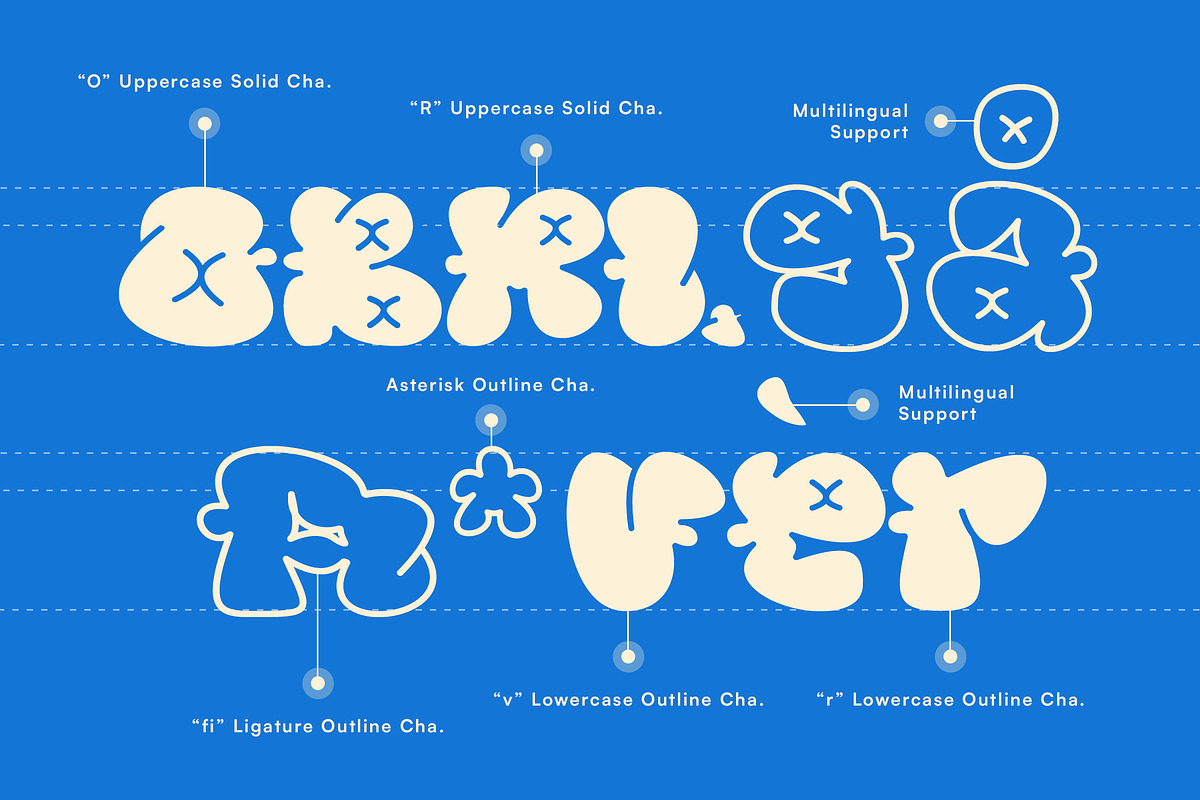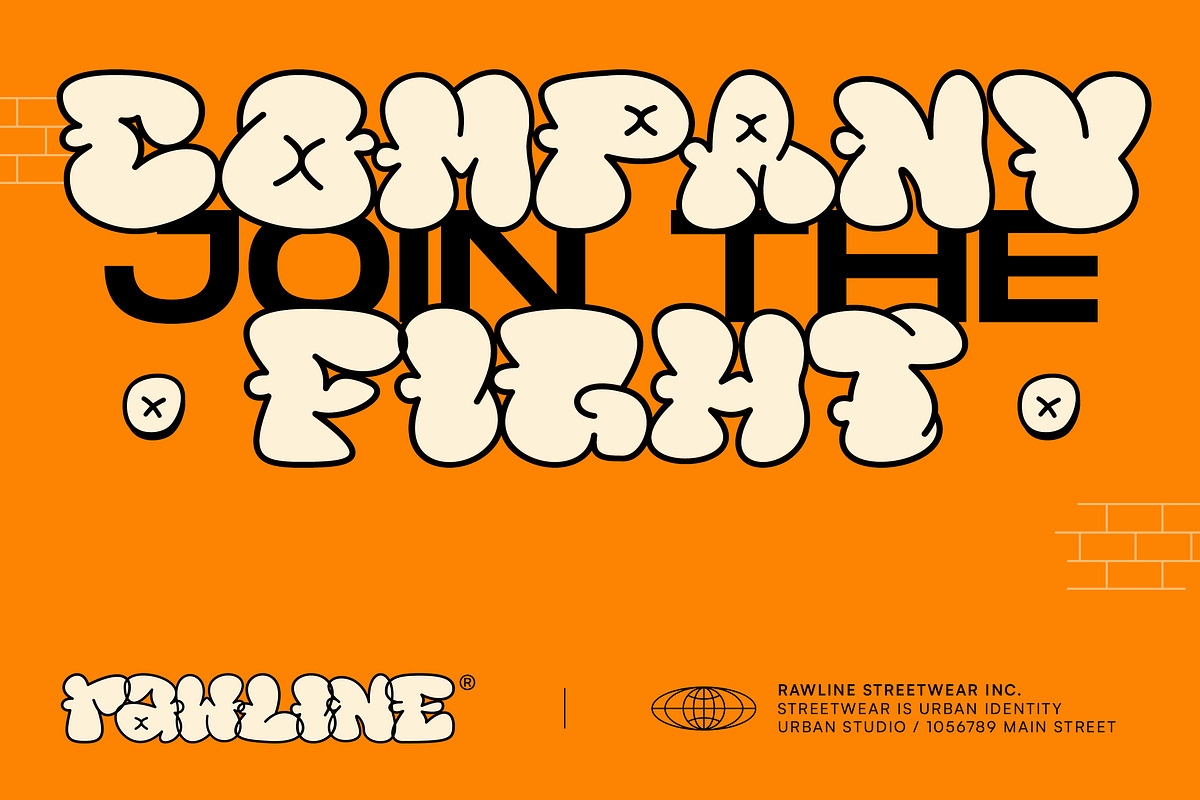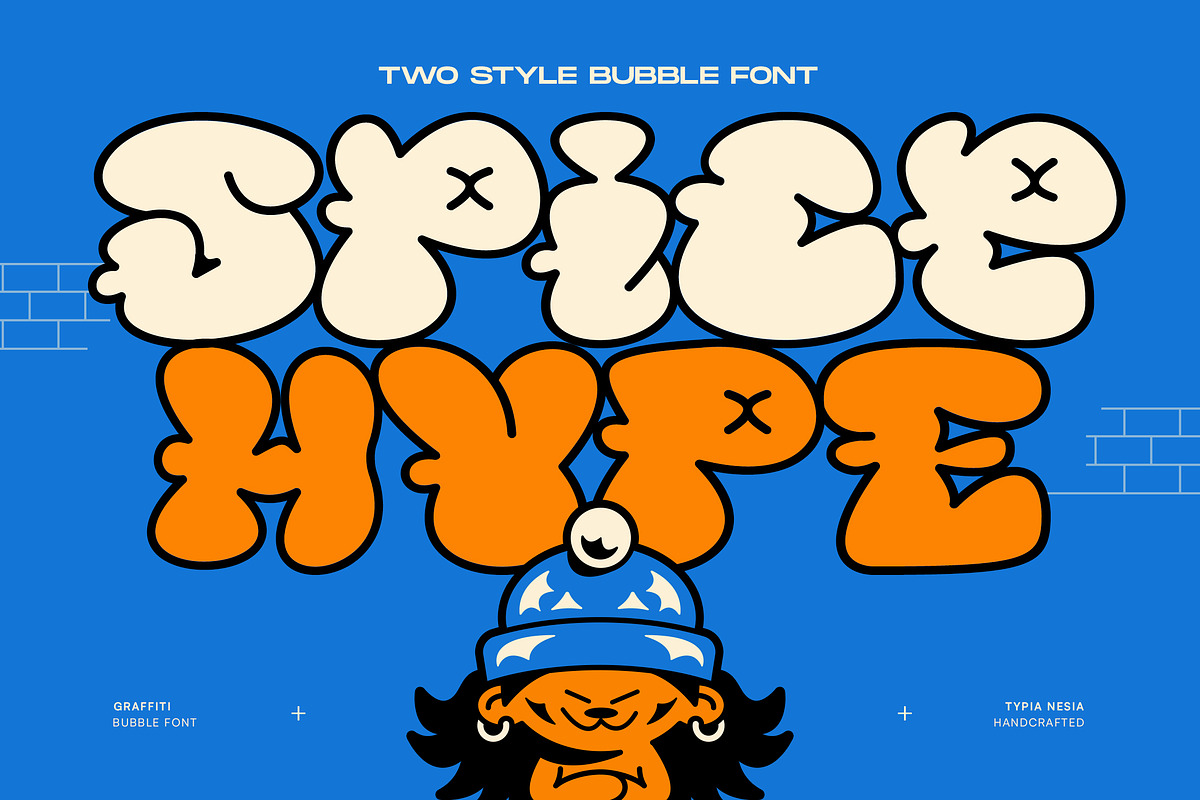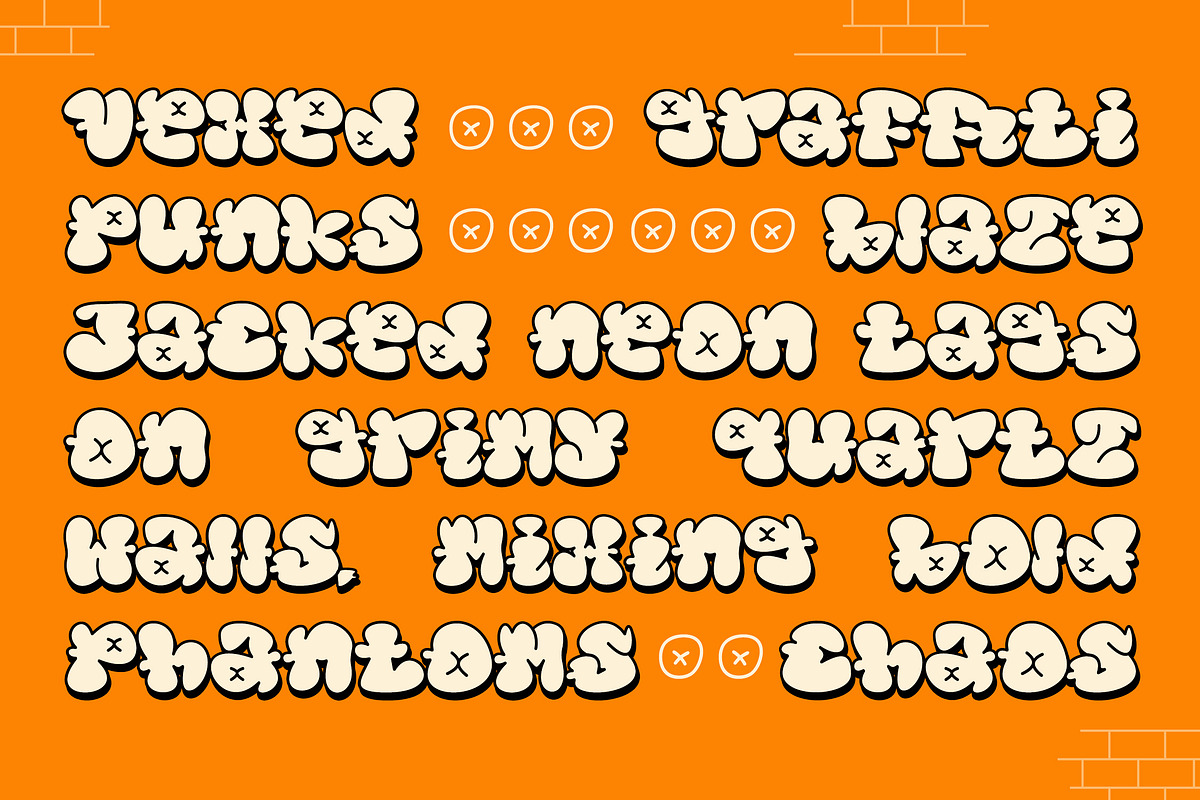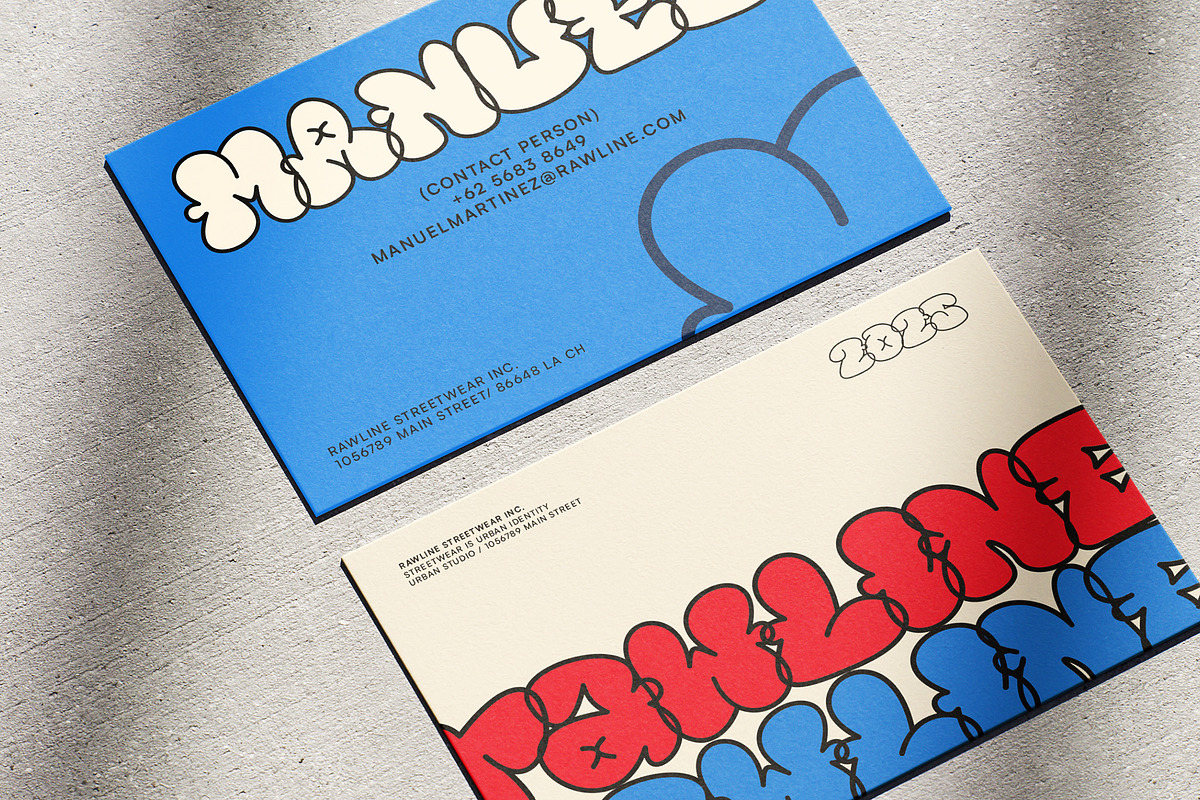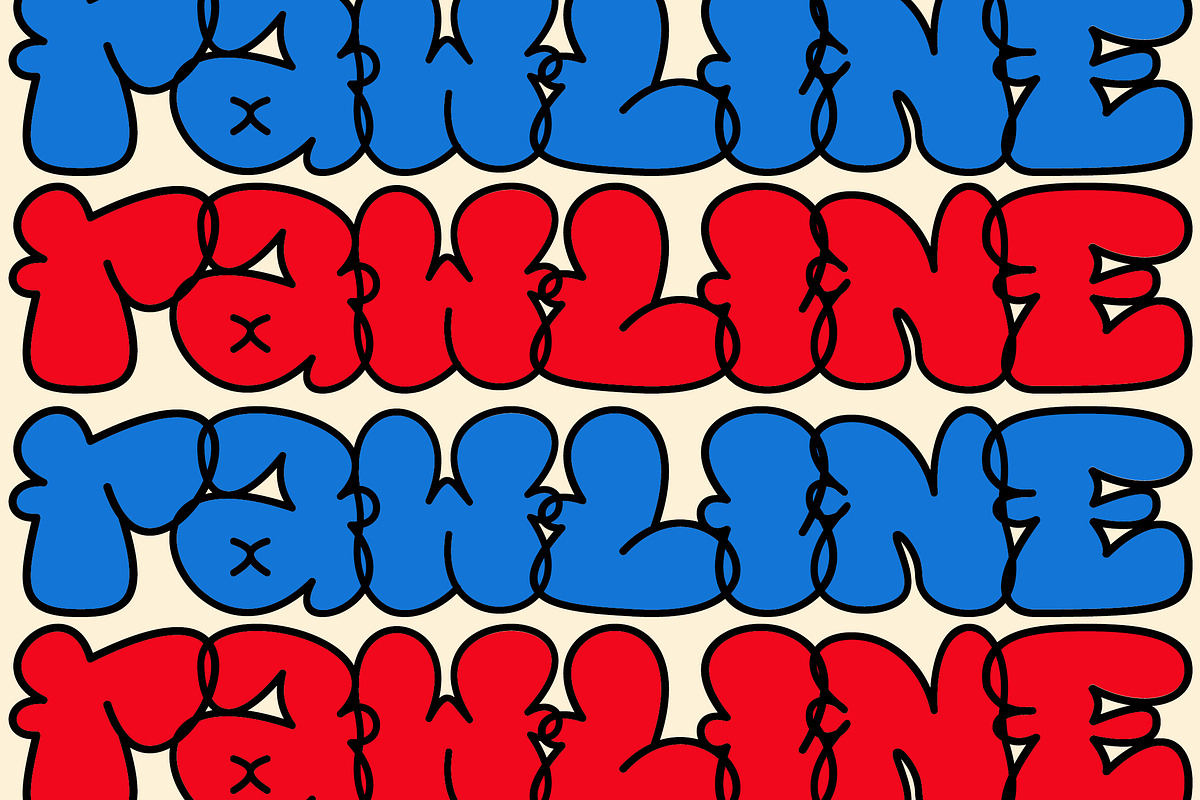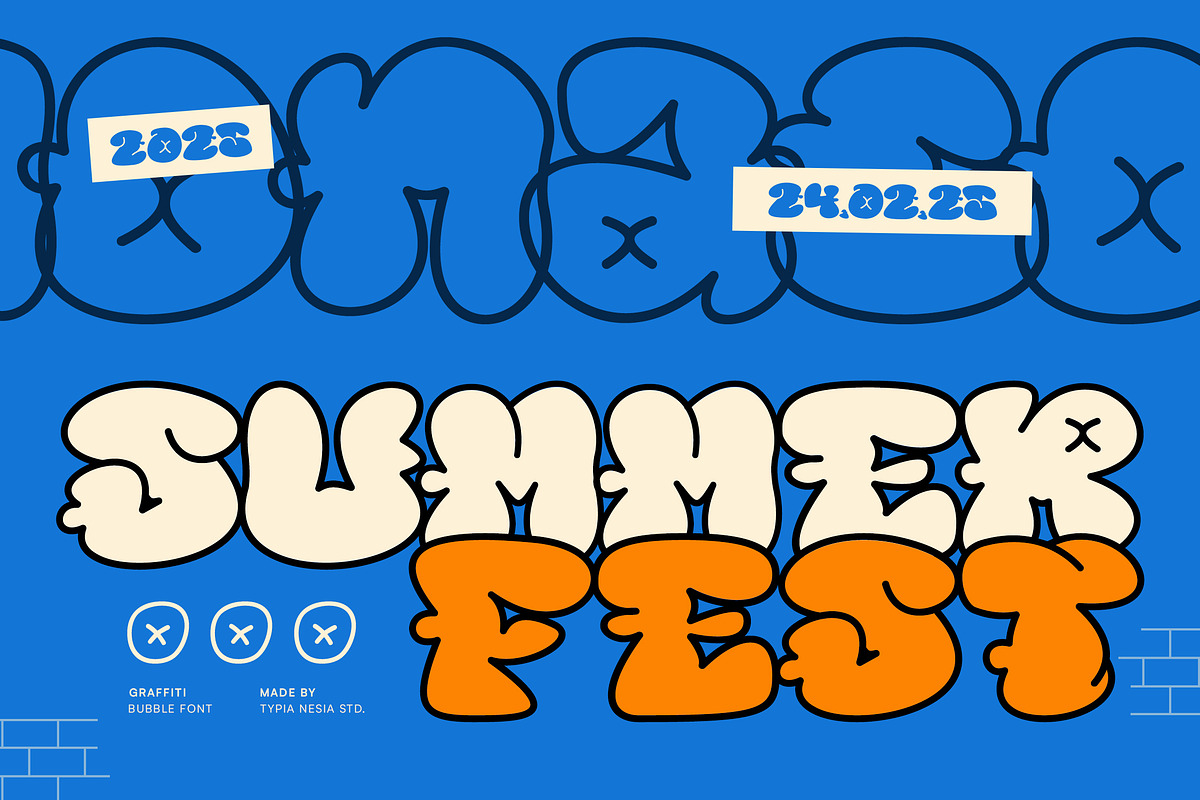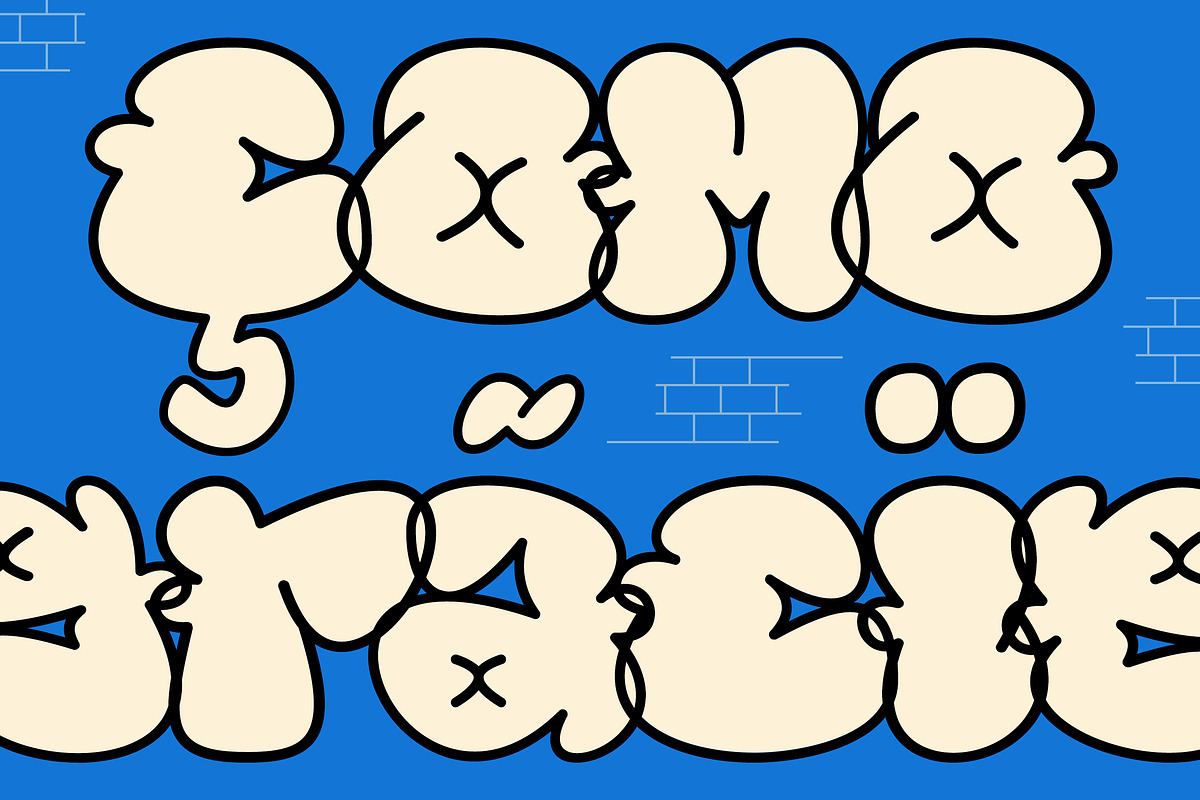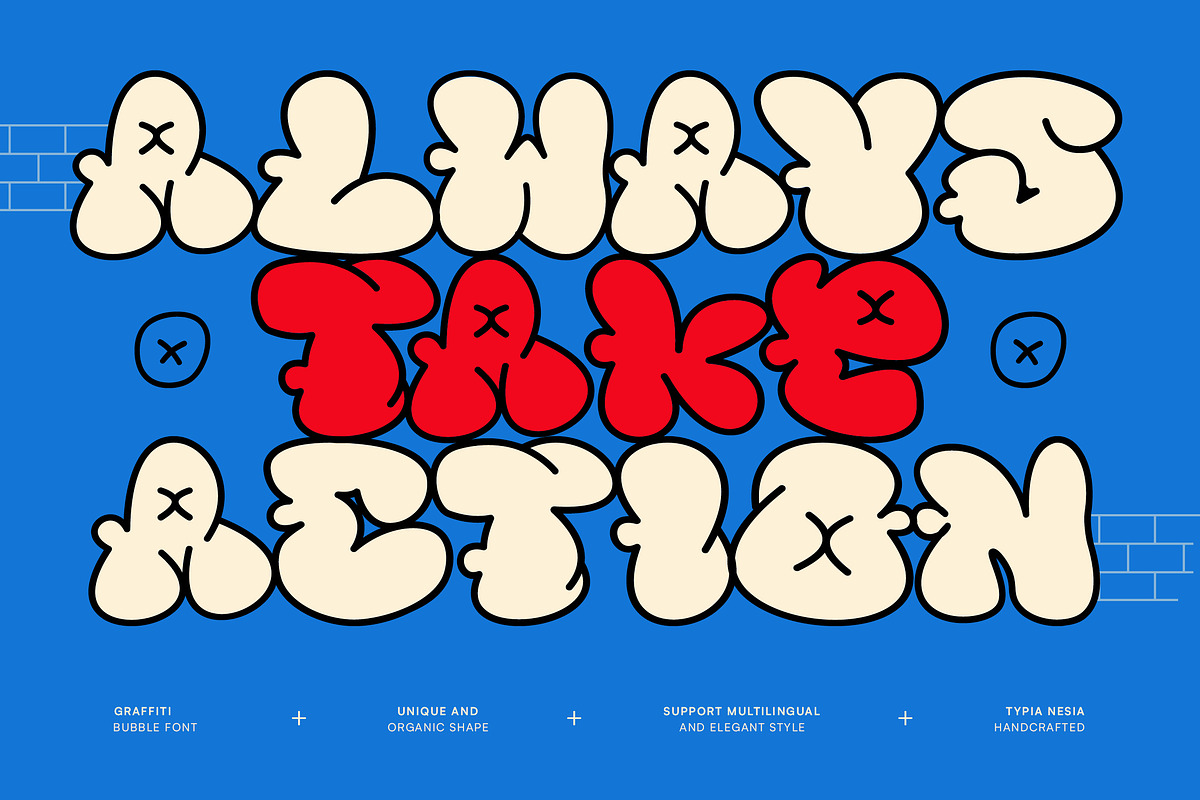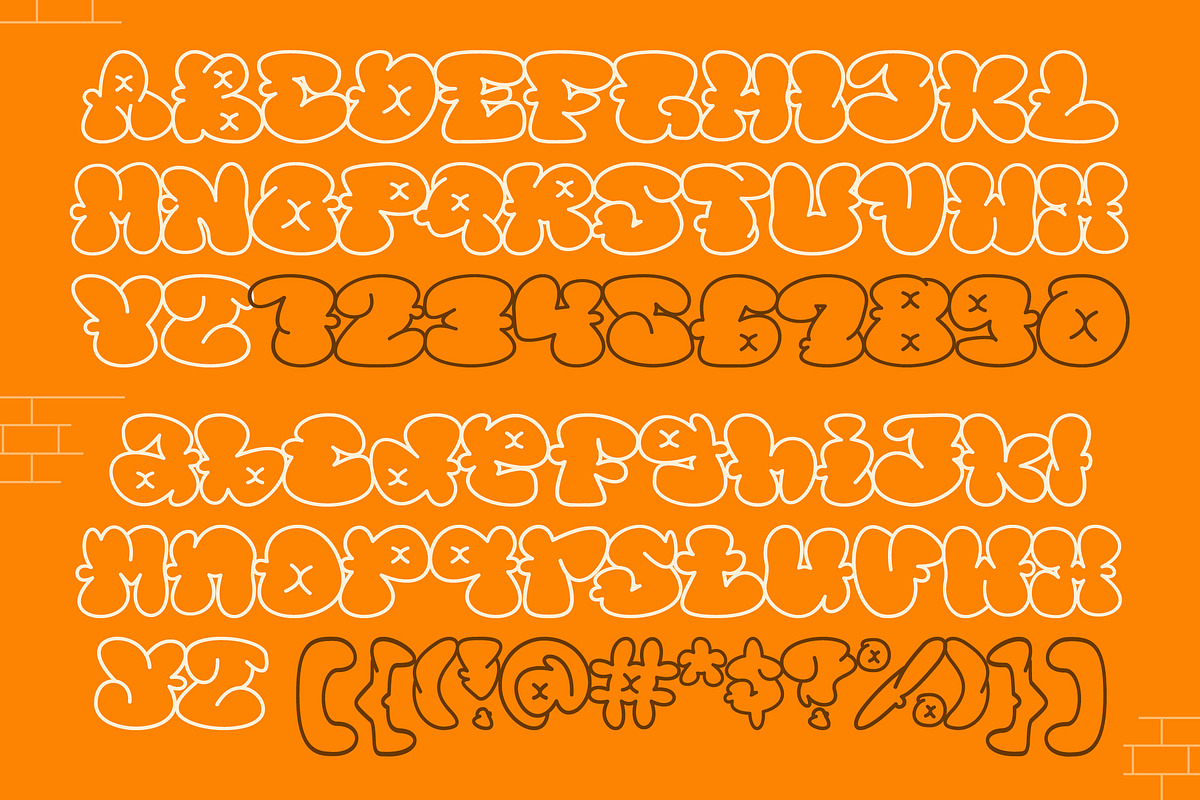
Spice Hype - Street Bubble Grafitti
Spice Hype - Street Bubble Balloon Graffiti Font - Fun & Playful Urban Cartoon Logo Font
Spice Hype is a bold and modern street bubble balloon graffiti font inspired by urban street culture. Featuring playful balloon shapes, chunky outlines, and a fun cartoon vibe. Designed to blend modern graffiti aesthetics with bold bubble lettering, this font creates a friendly yet powerful look that feels urban, youthful, and dynamic. Its rounded forms, thick strokes, and lively character make it ideal for streetwear brands, logo design, branding, posters, comic titles, kids' projects, energetic visual content, food packaging, playful logos, bold headlines, and creative designs that need a fun, bold, and eye-catching personality.